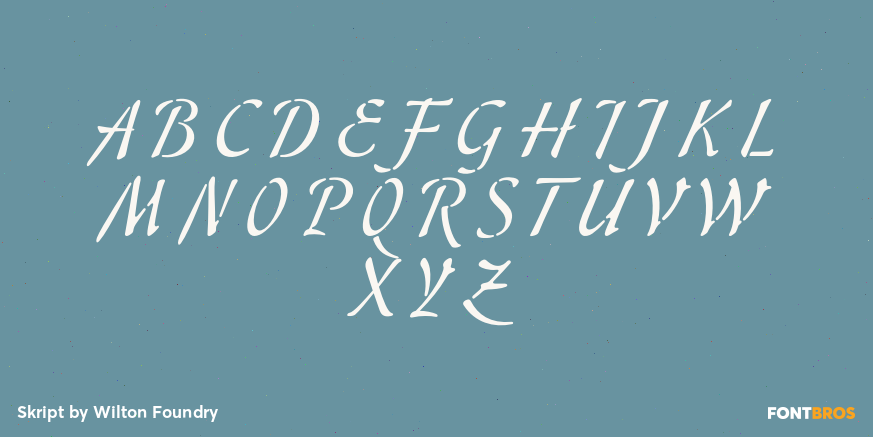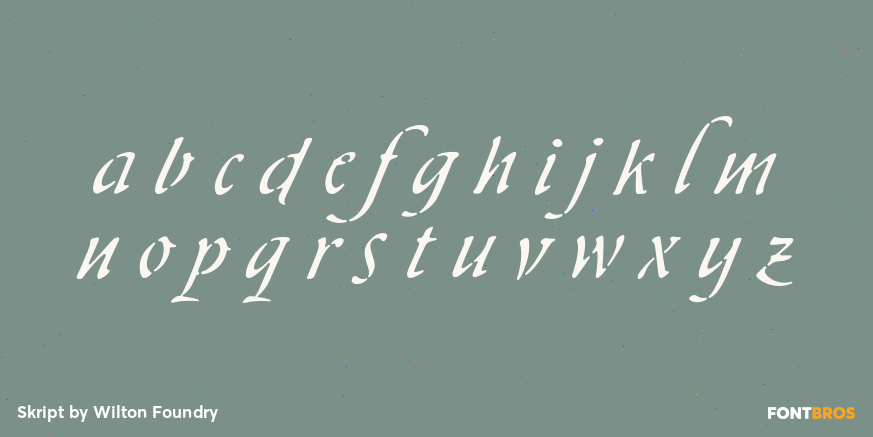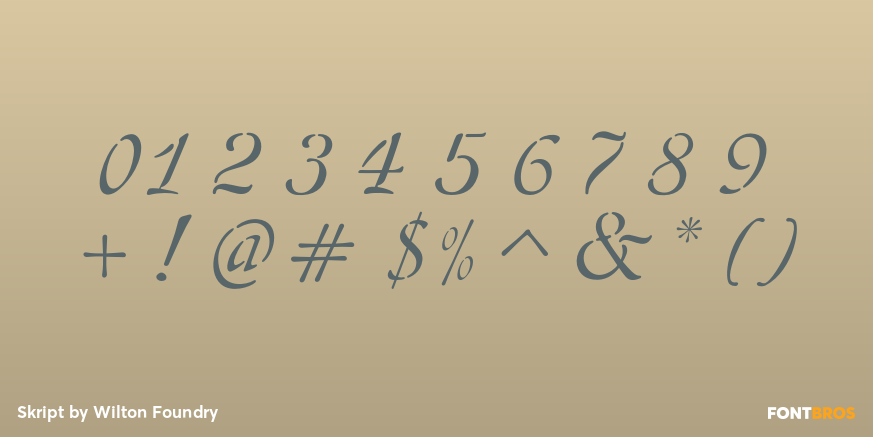
Skript
Font Family by Wilton Foundry
Skript attempts to capture the essence of handwritten calligraphy. It emphasizes downstrokes and omits hair strokes with a contemporary stencil-like effect. Text is very readable since the foundation of each character remains intact. There many alternatives that make Skript versatile in a variety of applications. Compared to Carnegie Classic, Skript is more legible but less compact.